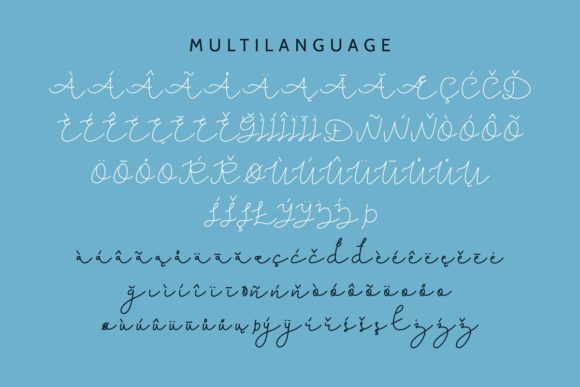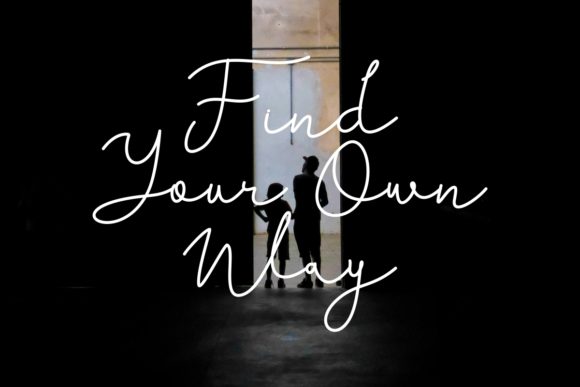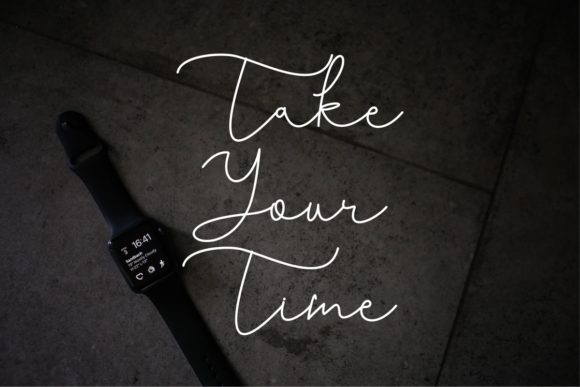
Introduction to Karllia Font
Remember that moment when you finally found the perfect font to elevate your creative project? For designers, it’s like stumbling upon a hidden treasure that brings their vision to life. And that’s exactly what happened when the Karllia Font entered the design scene.
This beautiful script font is a masterclass in simplicity and elegance, making it the go-to choice for designers seeking a modern touch for their projects. With its clean lines, gentle curves, and transparent background, Karllia Font is a versatile design resource that can add a personal touch to any creative endeavor.
What sets Karllia Font apart is its unique ability to bring a high-quality, sophisticated feel to any design, without overpowering the content. Whether you’re working on a personal project or a commercial one, this font is sure to become a valuable asset in your design arsenal, available for free download to boot.
Key Features of Karllia Font
- High-quality font design, ideal for creative projects requiring a unique touch.
- Features a transparent background, allowing for seamless integration into designs with complex backgrounds.
- Designed with a high-resolution (300 DPI) for use in print and digital applications.
- Unique characteristics include a modern, elegant style and a wide range of font sizes and styles.
- Perfect for use in logos, branding, and other design elements where a distinctive font is required.
Honest Review: Karllia Font
As a designer, I’m always on the lookout for high-quality design resources to enhance my creative projects. Recently, I stumbled upon the Karllia Font, and I’m excited to share my thoughts on this free download.
- ✨ The font has a beautiful, elegant design that’s perfect for formal and professional projects.
- ✨ The transparent background makes it easy to use in various design applications.
- ✨ The font is available in multiple weights and styles, giving designers plenty of flexibility.
- ⚠️ The font may not be suitable for casual or informal projects, as it has a somewhat formal tone.
- ⚠️ The font’s high quality comes at a cost: it can be quite heavy and may slow down design applications.
Overall, I’m impressed with the Karllia Font. It’s a high-quality design resource that’s perfect for professional and formal projects. While it may have some limitations, I think it’s definitely worth checking out for designers who need a elegant and sophisticated font.
Karllia Font is a high-quality design resource that can elevate your creative project to the next level. With its transparent background and elegant style, it’s perfect for a variety of applications.
Tips for Getting the Most Out of Karllia Font
For the best results, use Karllia Font in conjunction with high-quality images and graphics. Experiment with different font sizes, colors, and styles to create a unique look. Additionally, consider pairing Karllia Font with other design resources, such as graphics and textures, to add depth and interest to your design.
Karllia Font is perfect for a variety of creative projects, including logos, business cards, brochures, and social media graphics. Its elegant style and transparent background make it ideal for designs that require a touch of sophistication and refinement.
What is the recommended resolution for using the Karllia Font?
The Karllia Font is designed to be used at high resolutions, typically 300 DPI or higher. Using the font at lower resolutions may affect its quality and readability. If you’re working on a project that requires a high level of detail, we recommend using the font at 300 DPI or higher to ensure optimal results.